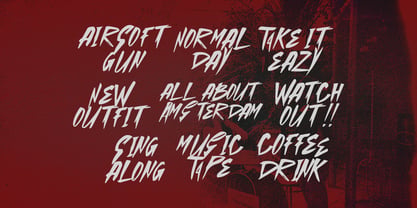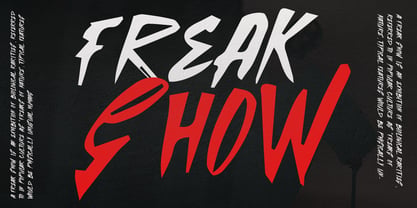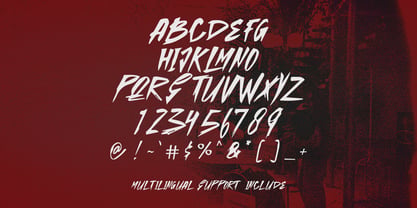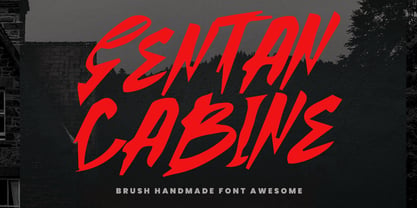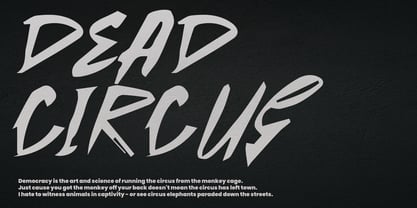
MC Sentan Cabine
von Maulana Creative
Die Schriftfamilie MC Sentan Cabine wurde von Gilang Maulana entworfen und von Maulana Creative veröffentlicht. MC Sentan Cabine enthält 1 Stile.
Sentan Cabine handmade horror brush handwritten font, fun character with alternates and ligatures. To give you an extra creative work. Sentan Cabine handmade brush display font support multilingual language support.